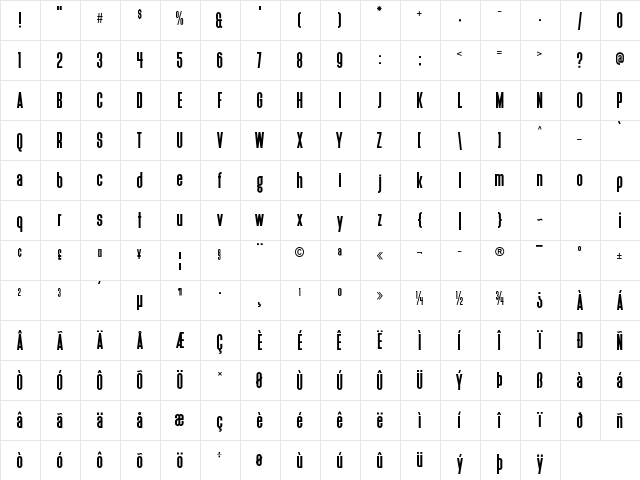
Deutschlander Regular
Design Context for Deutschlander Typeface
Deutschlander takes a measured approach to typography — its balanced proportions and neutral character make it a reliable workhorse for both digital and print work.
Pro Tip: Use Deutschlander in both headline and body roles to test its range before committing to a single application.